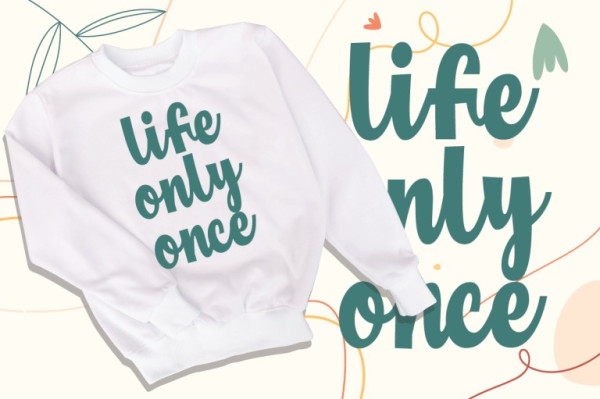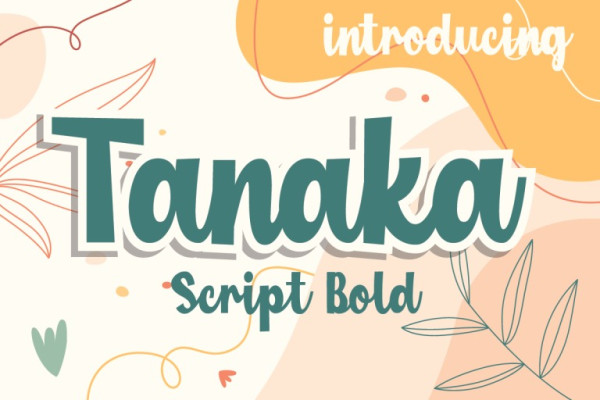
Tanaka Script Font
Tanaka Script Font is a bold script font perfect to be applied to the design of t-shirts, wedding cards, fashion, books, magazines, stationery, invitations, and many more. Make your designs more attractive with Tanaka!